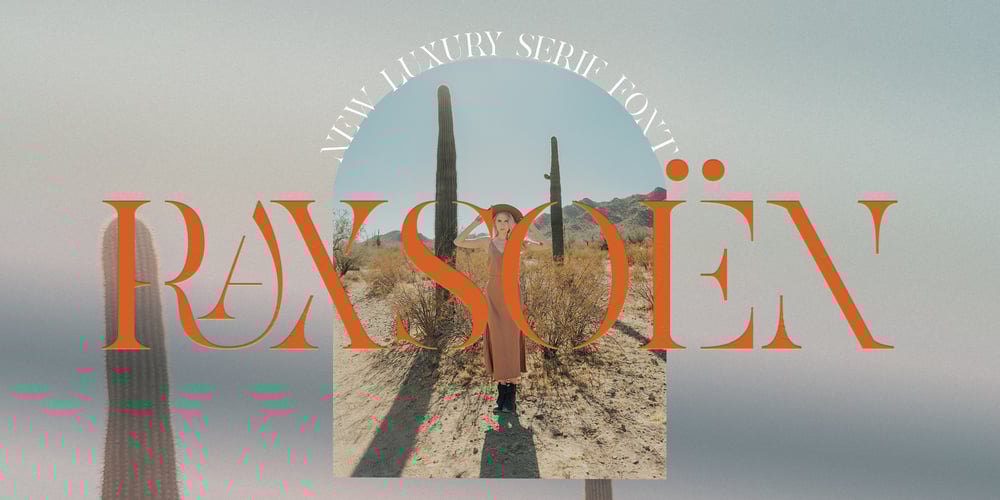
Raxsoen Font Family was designed by Arif Fadilah and published by Luhop Creative. Raxsoen contains 2 styles and family package options. Raxsoen elegant display serif with beautiful contrast. Designed for fashion-themed projects, suitable for creating elegant, chic, lifestyle design such as logos, title, and magazine, and more.The luxury serif comes in 2 weights, Regular and Italic. are enhanced by OpenType features such as standart ligatures.Raxsoen can be used in high-end branding, logo designs, magazines, product packaging & invitations.Raxsoen is also included full set of: Uppercase and Lowercase Letters Multilingual Numerals & Symbols Punctuation Standard ligatures Wish you enjoy our font and if you have a question, don’t hesitate to drop message & I’m happy to help :